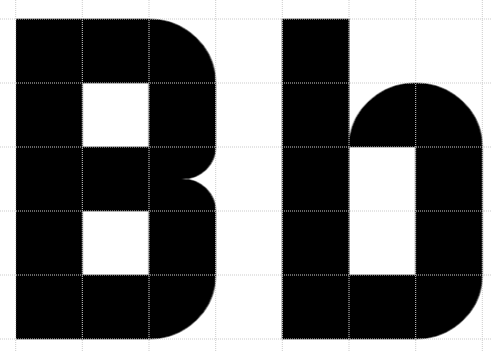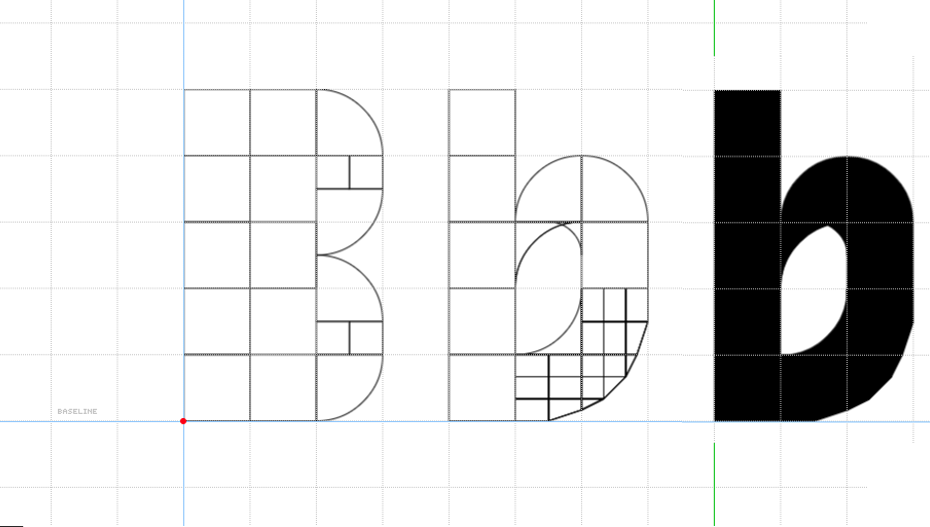
A very attractive chord diagram font. Why do you have a mix of A♭ and G#?
Maybe you should have both or just the former?
I wonder how other chord diagram fonts map chords to characters.
And could the ♭ symbol be less b-like. The context makes it clear what it is but I'm easily confused.
@meek: i don't play :) i googled fret chords fonts and guitar chord fonts and only got a few results. most provide limited chords or seemed very complicated to use. there are many chord charts and i used this one to create this first set. i don't know if this one is the best or most accurate, so i think i need to do a little more research, but i was surprised there are not more chord fonts available and it seems like an under-served market. thanks for the feedback and i'll work on the flat :)
thanks afrojet fot the TP. i will eventually get around to the other sets in the family. still doing some research on all the varieties. i will probably do one with the basic 15 chords, then maybe a bar chord one, and then the others which would be: A-B, C-D, E-F-G. some will probably duplicate chords found in others, like the basic. but maybe it will be useful. thanks again.
Something like this maybe?
Plus, I think the reason why G# is used is because Abm has a Cb; a very obscure note. However, G#m has a B.
a design for the flat symbol